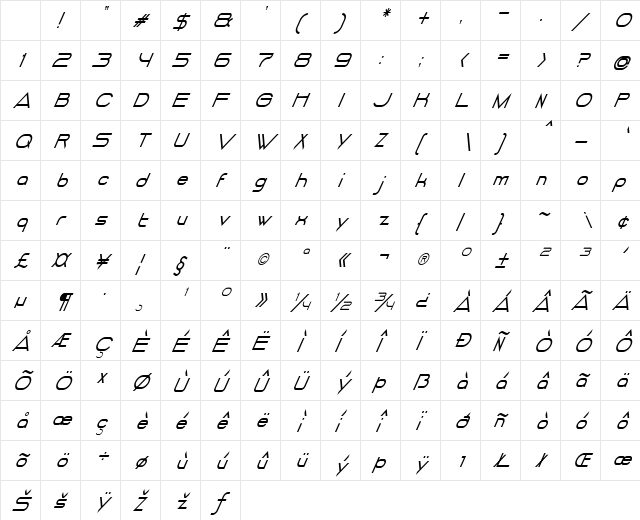
Complete DANCING JUICE Italic glyph index. Displaying only characters natively supported by DANCING JUICE Italic font.
DANCING JUICE is a composed and adaptable typeface that performs quietly and consistently across a wide range of design contexts. The slanted form adds forward momentum and visual energy.
Pro Tip: Use DANCING JUICE for emphasis, pull quotes, and subheadings where its slanted energy can add rhythm to the layout.